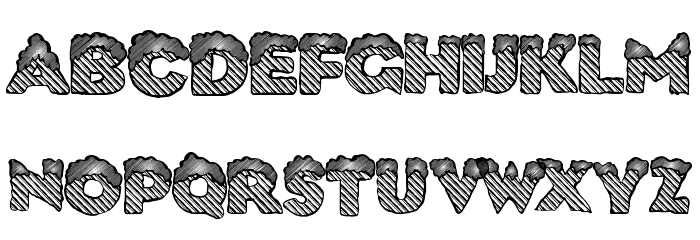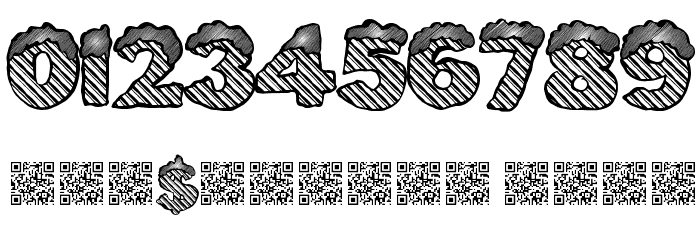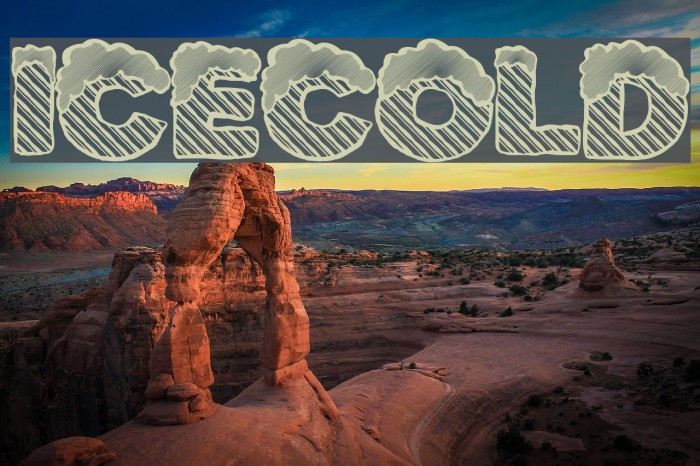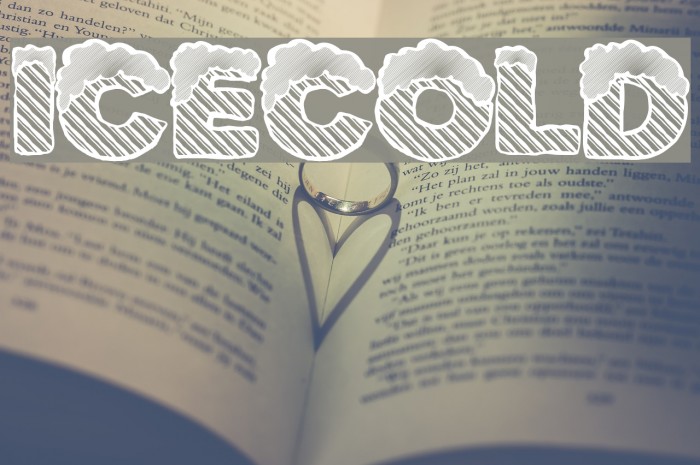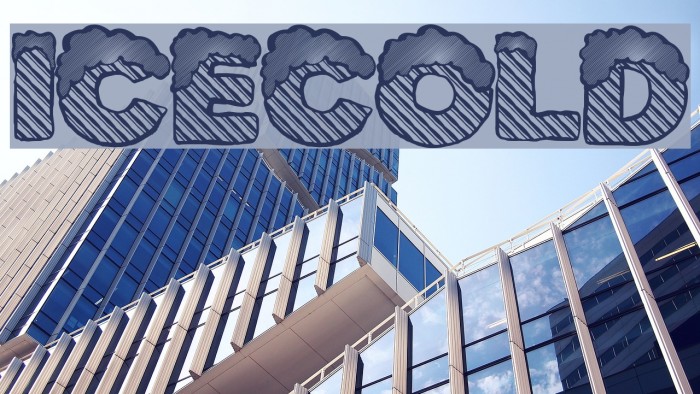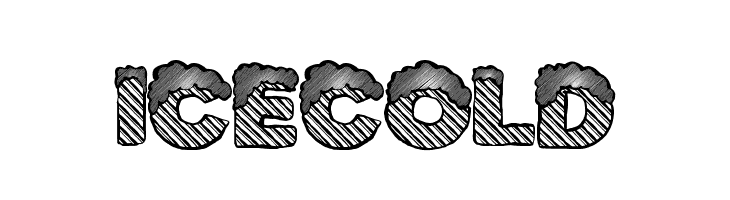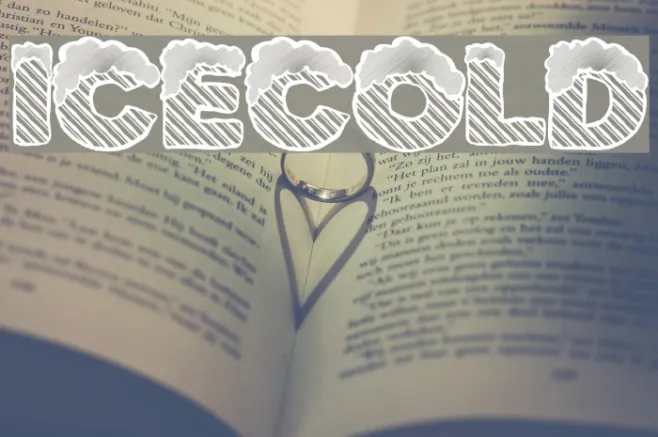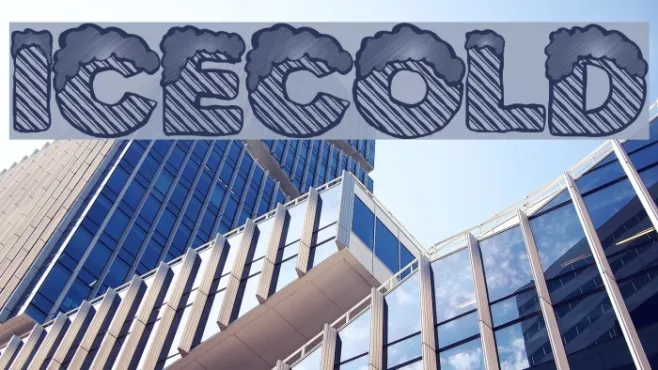
IceCold Font
This font features a playful and frosty design, with each character appearing as if it's covered in a layer of snow or ice. The letters are bold and have a striped pattern that adds depth and texture, enhancing the wintry theme. The uppercase and lowercase letters maintain a consistent style, while the numbers and special characters follow suit, ensuring a cohesive look across all elements. This font is perfect for creating a chilly atmosphere, ideal for winter-themed projects or holiday promotions.
A playful, icy font with bold, textured letters resembling snow-covered surfaces.
- Proposed Projects: Ideal for winter-themed designs, holiday cards, festive banners, or any project needing a frosty touch.